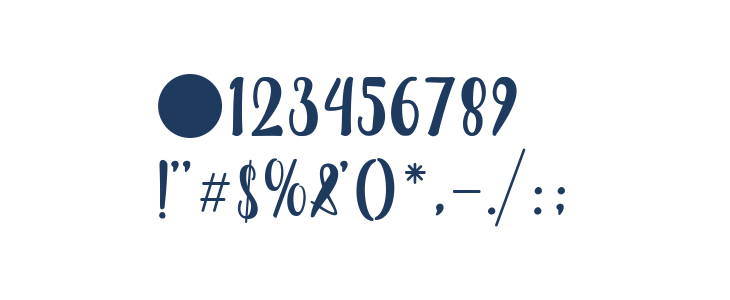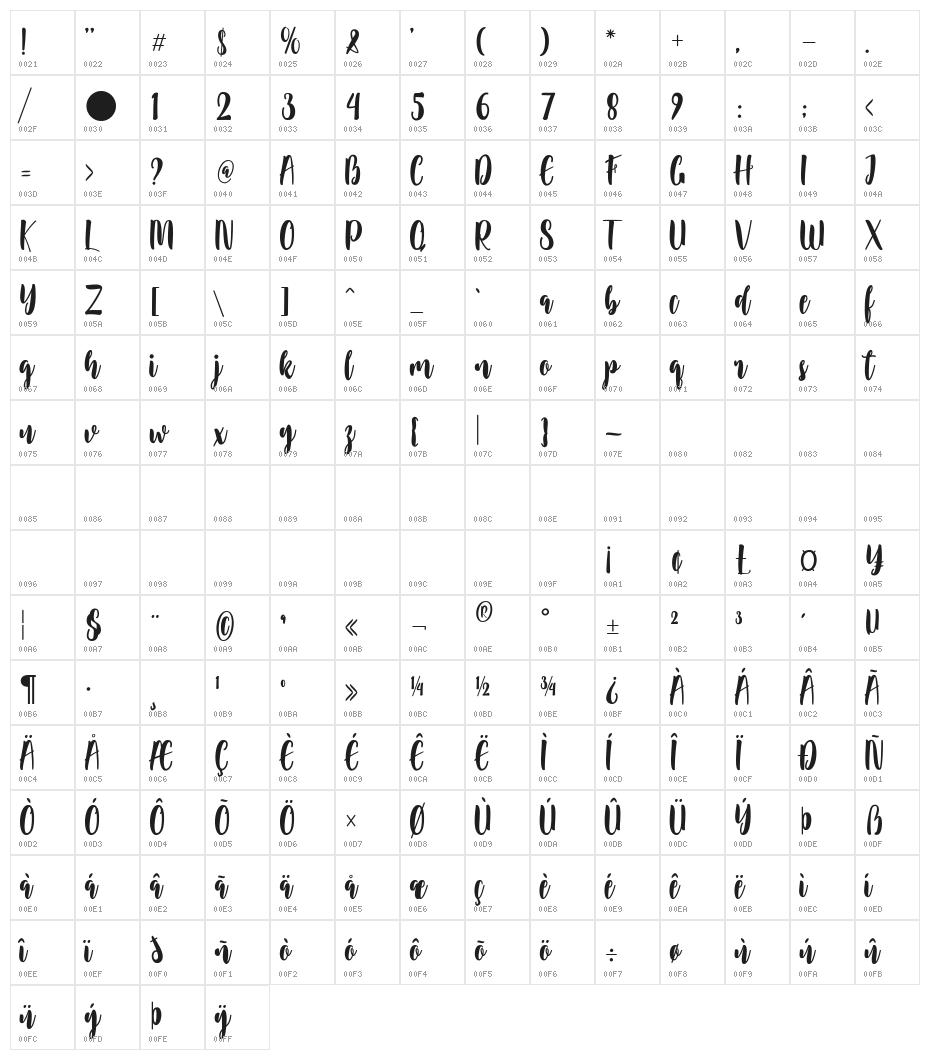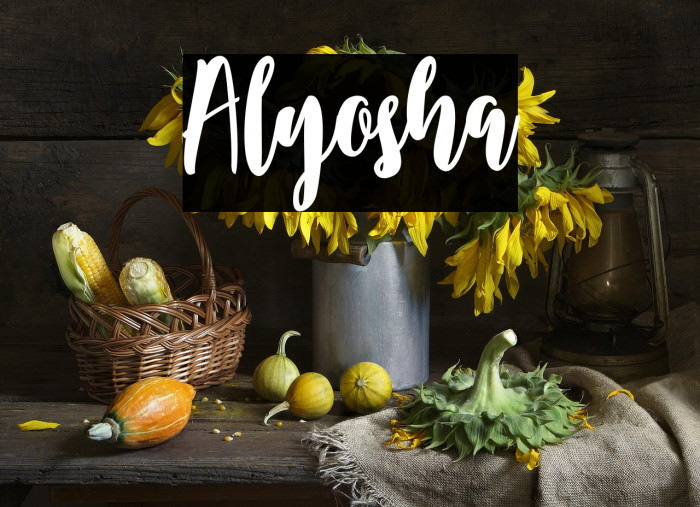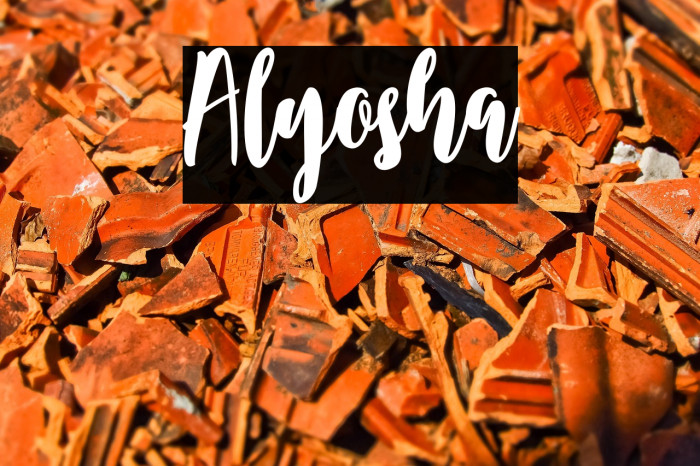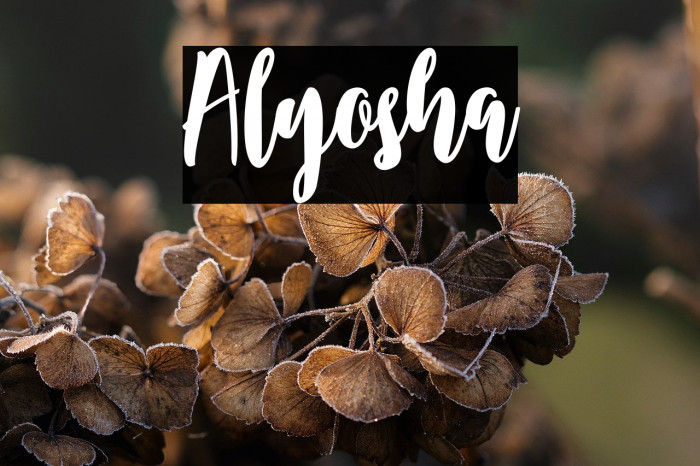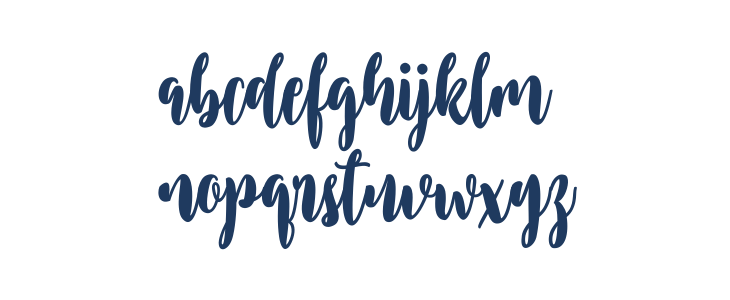
Alyosha Font
Alyosha Description
This font features a bold and expressive handwritten style with a modern flair. The letters are crafted with smooth, flowing curves and a slight slant, giving it a dynamic and lively appearance. The uppercase letters are tall and commanding, while the lowercase letters maintain a consistent flow with a playful touch. The numbers and special characters are designed to match the overall aesthetic, ensuring a cohesive look across all text. The font's thick strokes and rounded edges contribute to its friendly and approachable feel, making it suitable for a variety of creative projects.